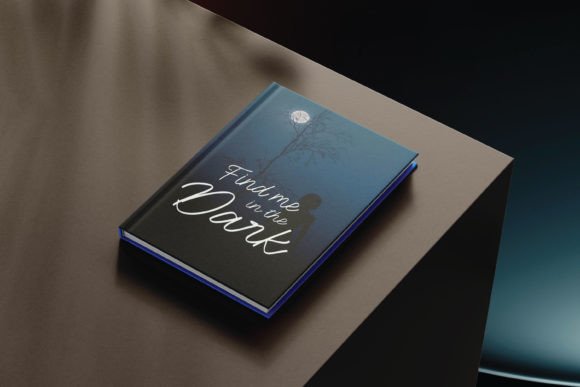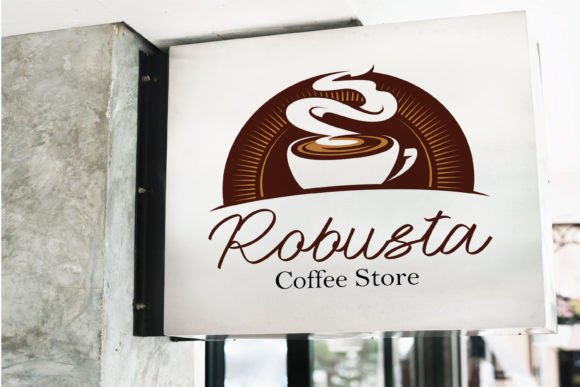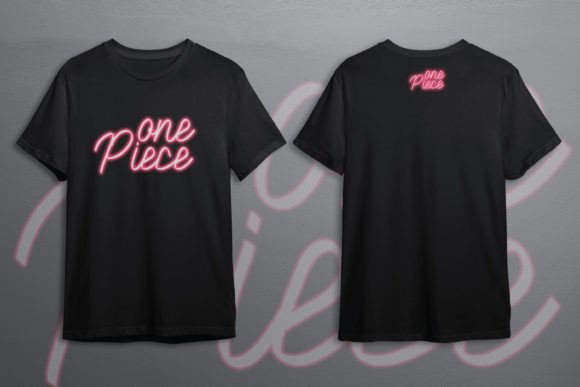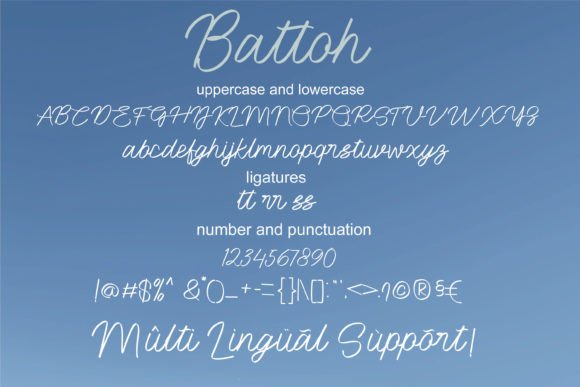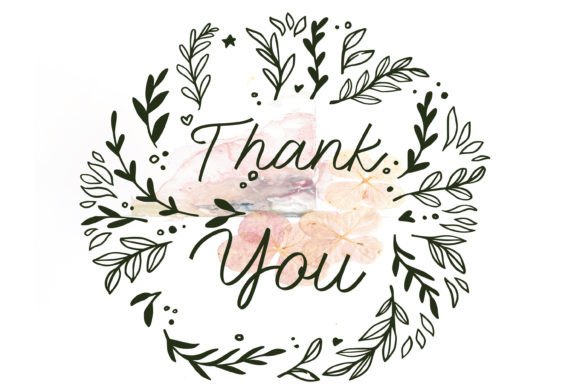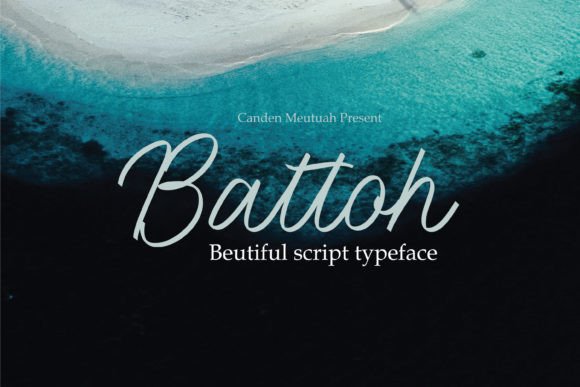
Battoh Font: Elevate Your Designs with Elegance and Timeless Style
Are you on the hunt for a font that exudes elegance, sophistication, and a touch of timeless charm? Look no further than the Battoh Font. This stunning, flowing handwritten font is designed to add a distinct flair to your favorite projects, making it a must-have for designers and crafters alike. In this article, we’ll dive into the world of Battoh Font, exploring its unique features, uses, and the magic it can bring to your designs.
The Essence of Battoh Font
Battoh is described as a flowing handwritten font with an elegant touch. Its incredibly distinct and timeless style sets it apart from other fonts, making it perfect for those who want to add a touch of sophistication to their work. Whether you’re designing a logo, crafting a social media post, or creating a stunning visual project, Battoh Font is sure to impress.
Key Features of Battoh Font
• Elegant and Sophisticated: Battoh Font boasts an elegant and sophisticated style that’s perfect for high-end designs, branding, and luxury projects.
• Flowing Handwritten: The font’s flowing handwritten style adds a touch of warmth and personality to your designs, making them more approachable and engaging.
• Distinct and Timeless: Battoh Font’s unique style ensures that your designs stand out from the crowd, while its timeless quality guarantees that your work will remain relevant for years to come.
• Versatile: This font is incredibly versatile, making it suitable for a wide range of projects, from digital designs to print materials.
Battoh Font is a dream come true for designers and crafters who want to elevate their work with a touch of elegance and sophistication. Whether you’re a seasoned professional or just starting out, this font is sure to inspire your creativity and help you create stunning designs that leave a lasting impression.
Use Cases for Battoh Font
So, where can you use Battoh Font? The possibilities are endless! Here are a few ideas to get you started:
• Branding and Logo Design: Use Battoh Font to create a luxurious and sophisticated brand identity that sets you apart from the competition.
• Social Media Graphics: Add a touch of elegance to your social media posts and stories with Battoh Font.
• Print Materials: Use Battoh Font to create stunning business cards, brochures, and flyers that showcase your brand’s personality.
• Digital Designs: Battoh Font is perfect for digital designs, including website headers, email newsletters, and more.
Tips for Using Battoh Font
To get the most out of Battoh Font, here are a few tips to keep in mind:
• Pair it with Neutrals: Battoh Font pairs beautifully with neutral colors like black, white, and gray. Try combining it with a bold color to create a striking contrast.
• Experiment with Sizes: Battoh Font looks stunning in a variety of sizes. Experiment with different font sizes to find the perfect balance for your design.
• Use it Sparingly: While Battoh Font is incredibly elegant, it’s best used sparingly. Try using it as a headline or title font to add a touch of sophistication to your design.
In conclusion, Battoh Font is a stunning, flowing handwritten font that’s perfect for designers and crafters who want to add a touch of elegance and sophistication to their work. With its incredibly distinct and timeless style, Battoh Font is sure to elevate your designs and leave a lasting impression on your audience. So why wait? Fall in love with Battoh Font and use it to create spectacular designs that showcase your creativity and style!